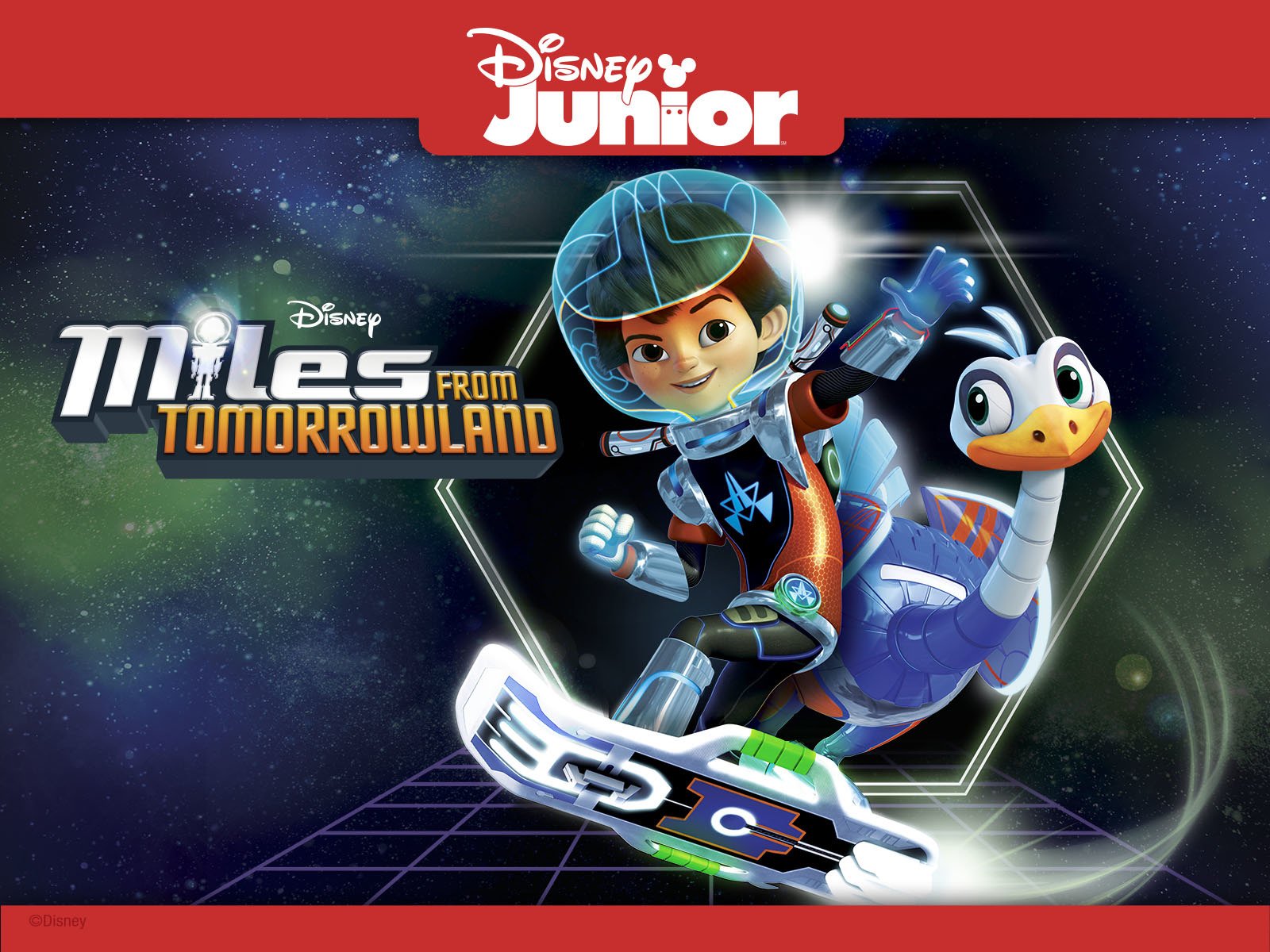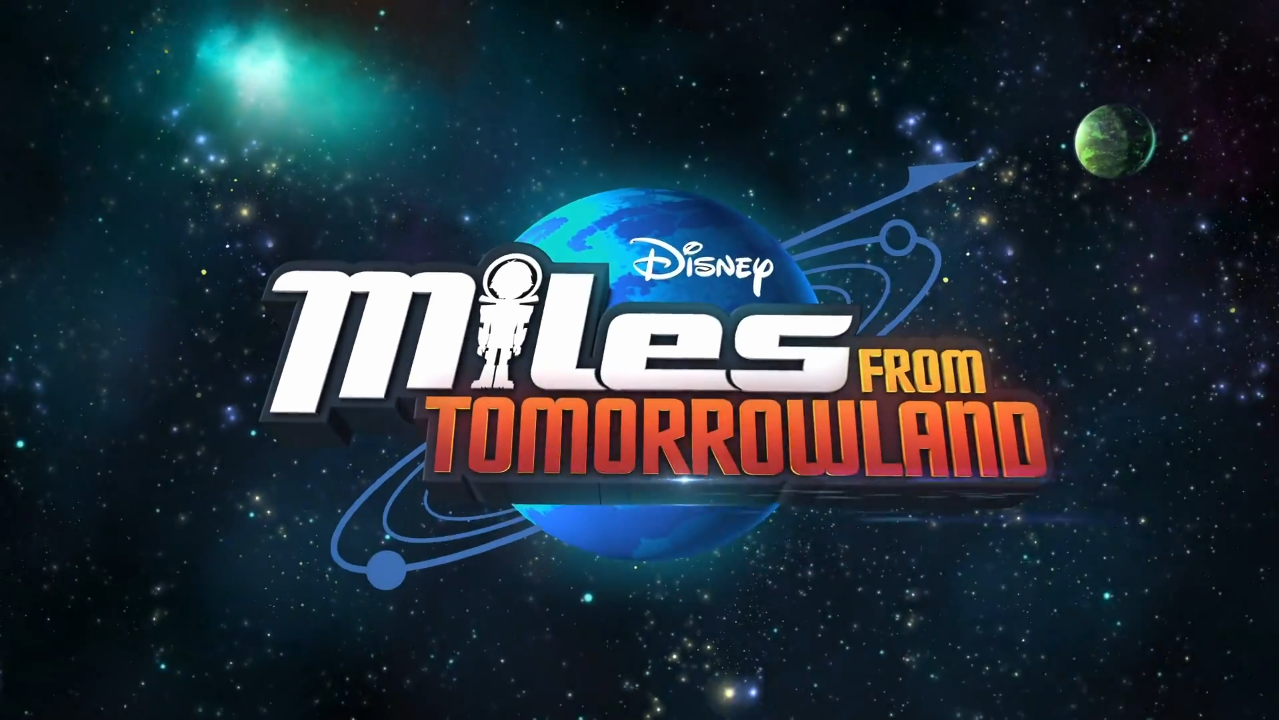
Miles From Tomorrowland Font
Miles from Tomorrowland is a CGI animated series produced by Disney Junior. The series debuted on February 6, 2015. This series is based on Tomorrowland in Disneyland in California and the Magic Kingdom in Walt Disney World in Florida. WHAT FONT WAS USED IN POSTER? The font used for the "Miles" part of the series logo is very similar to Linotype Atomatic, a single weight headliner designed.
Miles from Tomorrowland is a CGI animated series produced by Disney Junior. The series debuted on February 6, 2015. This series is based on Tomorrowland in Disneyland in California and the Magic Kingdom in Walt Disney World in Florida. The font used for the "Miles" part of the series logo is very similar to Atomatic, a single weight headliner designed by Johannes Plass for Linotype, and.
"Miles" is Linotype Atomic and "from Tomorrowland" part is Excelsior Sans.